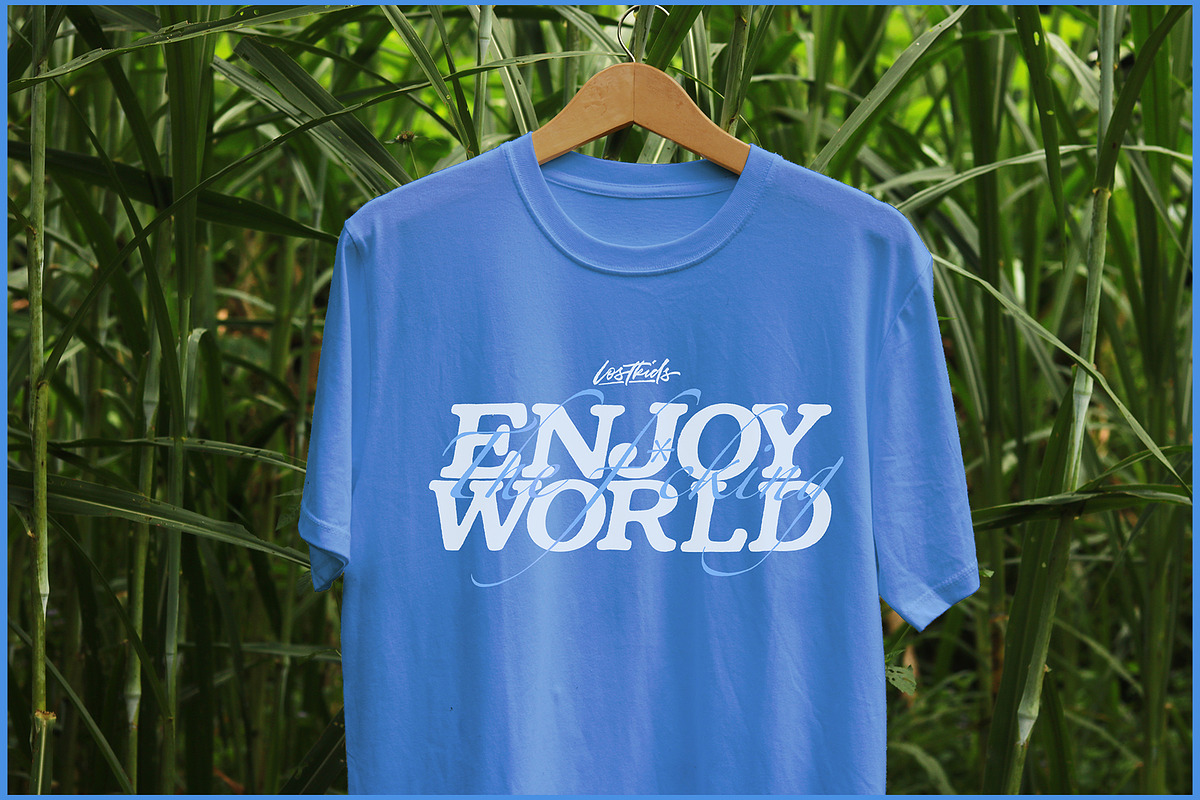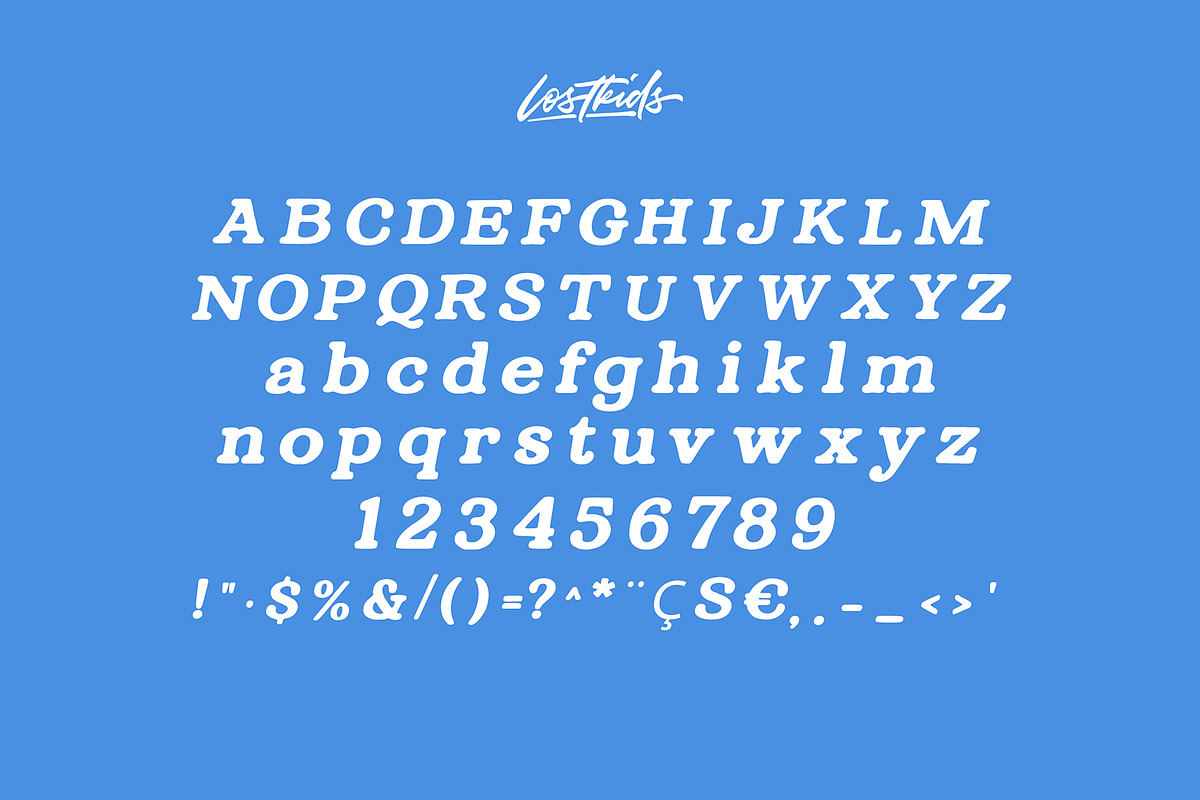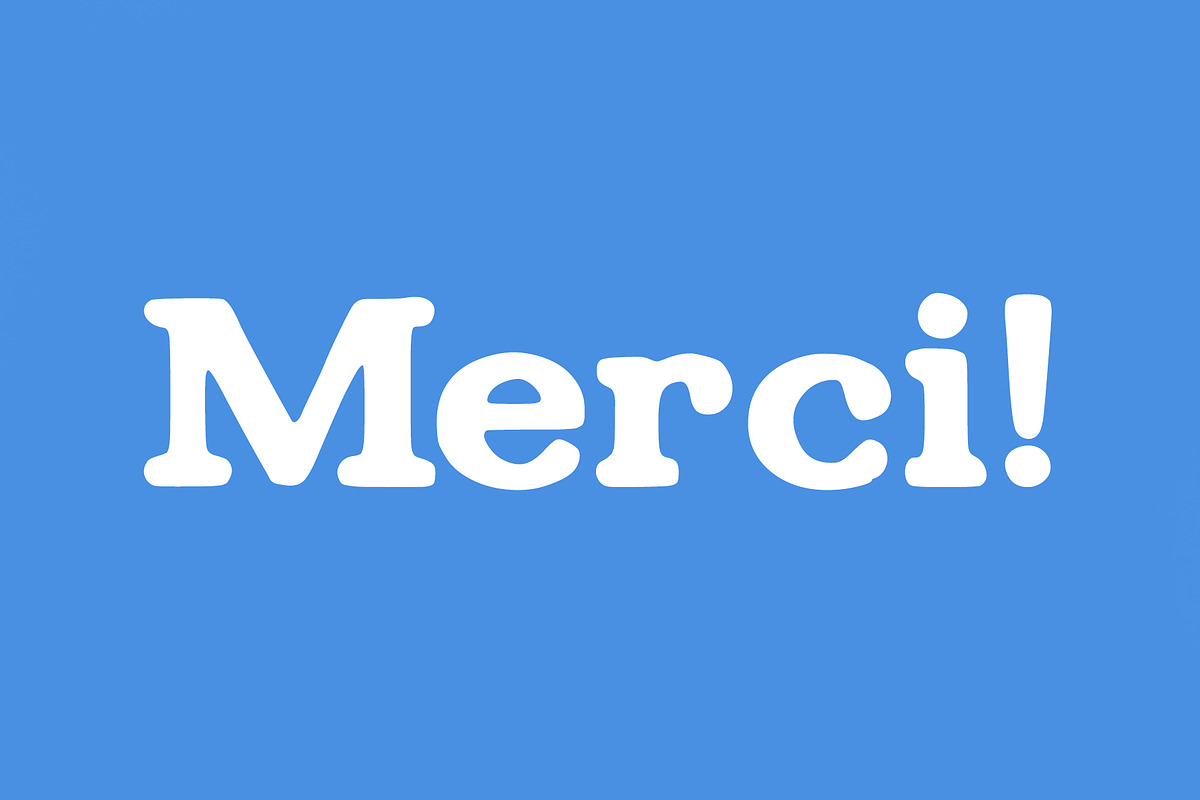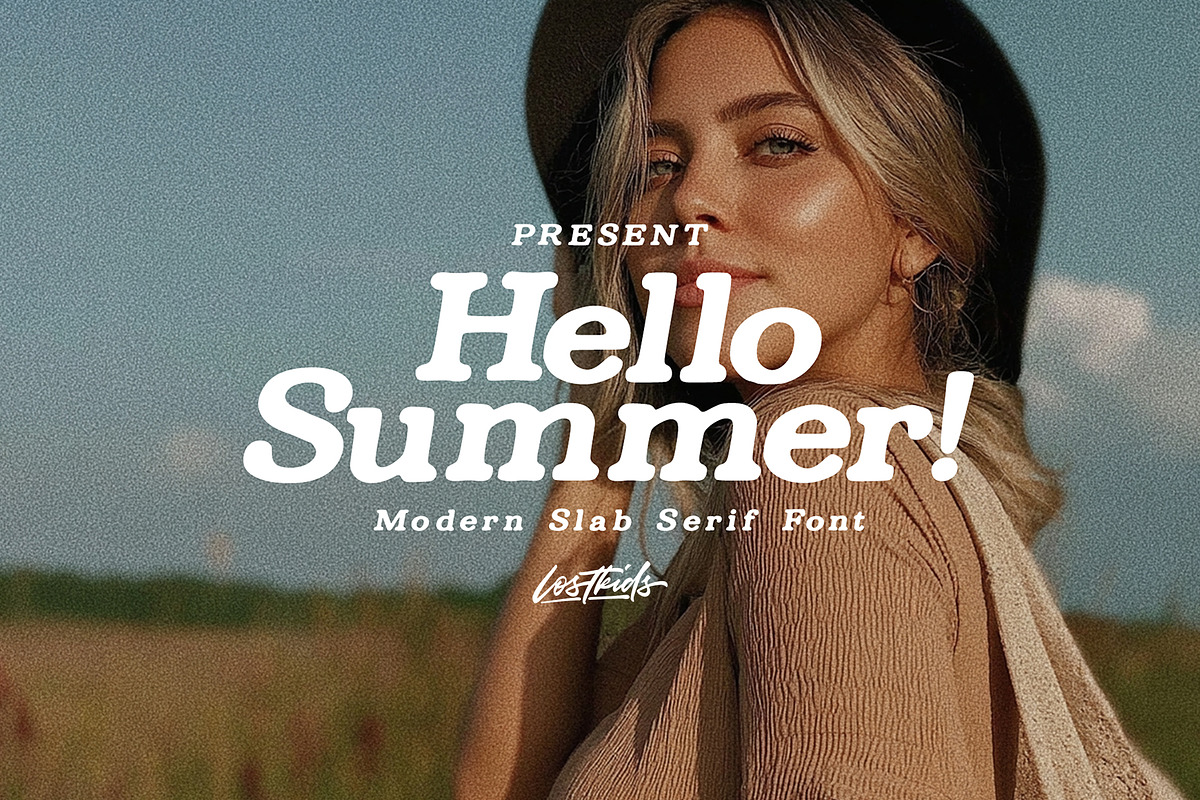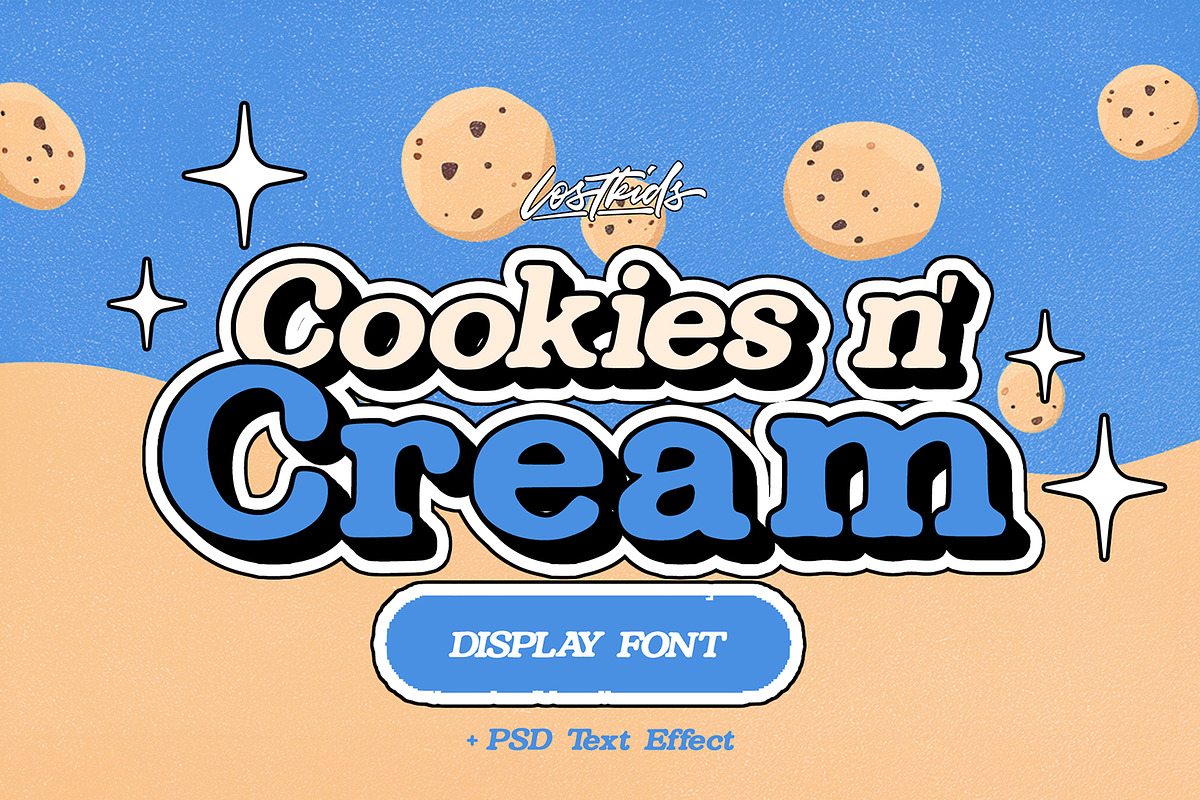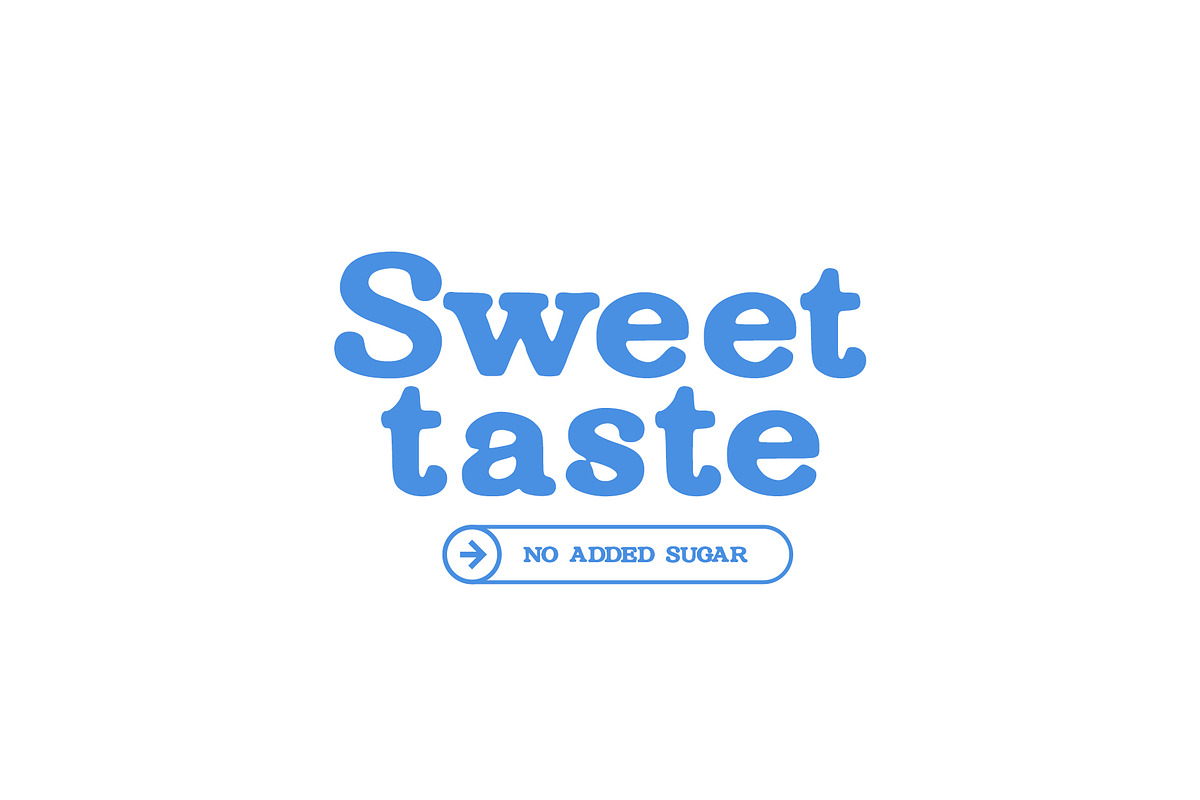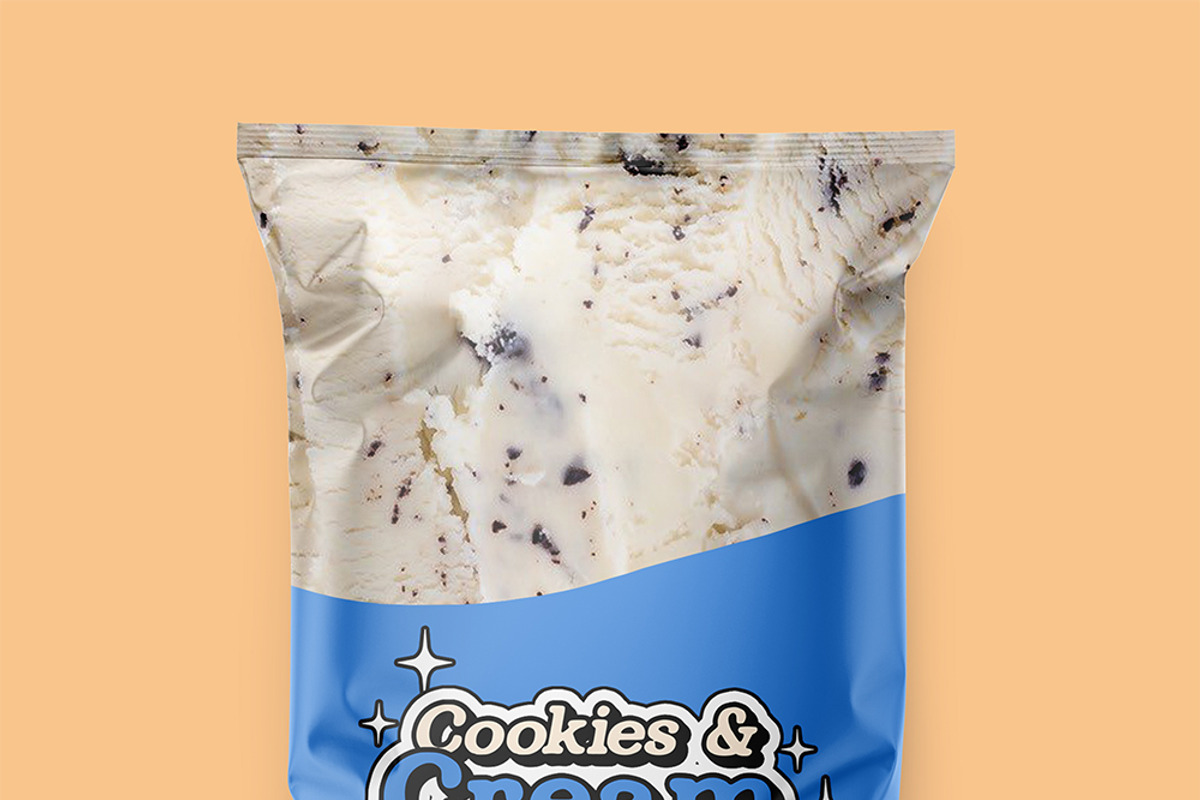
Cookies n' Cream Display Font + PSD
Cookies n’ Cream is a bold and playful slab serif display font with a retro-modern twist! Inspired by the sweet charm of cookies and the smooth delight of cream, this typeface brings fun and flavor to any design project. With chunky letterforms, soft curves, and an eye-catching presence, it’s the perfect font for headlines, branding, packaging, posters, social media graphics, kids' content, and more.
This product also includes a fully editable PSD text effect to help you easily recreate the deliciously bold look shown in the preview.
Whether you're designing for food brands, creating content that pops on Pinterest, or working on fun digital products, Cookies n’ Cream will make your work stand out like a sweet treat.
Uppercase & lowercase letters
· Branding & logos · Food and snack packaging · Children's designs · Viral Pinterest graphics · Social media content · Posters, stickers, and headlines